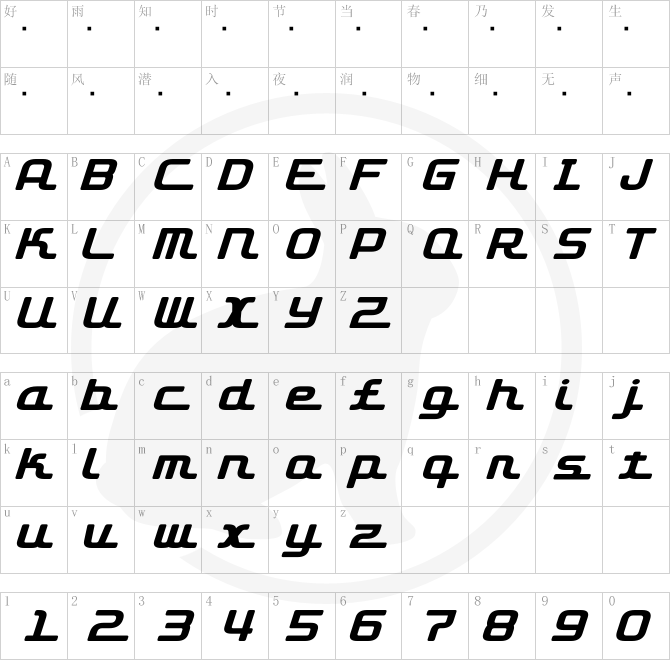
- Font Name:D3 Roadsterism Italic
D3-Roadsterism-Italic.ttf is a very beautiful artistic font, D3-Roadsterism-Italic.ttf is widely used in the design and printing of various books and pictures,D3-Roadsterism-Italic.ttf has a strong visual impact,D3-Roadsterism-Italic.ttf is a commonly used font in newspapers, magazines and books, and is used in posters, e-commerce Poster design, store design, logo design, font design and other fields.D3-Roadsterism-Italic.